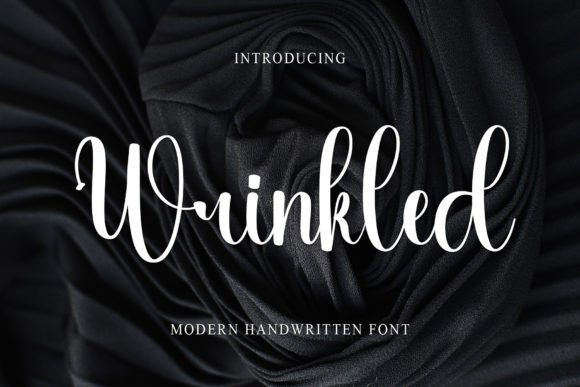
Introducing "Wrinkled Font" - A Handcrafted Masterpiece to Enchant Your Designs
Immerse yourself in the world of captivating typography with "Wrinkled Font," a captivating handwritten font born from the creative genius of PiPi Creative. This remarkable script font embodies elegance, charm, and timeless beauty, promising to transform your design projects into breathtaking masterpieces.
With its meticulously crafted curves and striking personality, Wrinkled Font is the ultimate choice for designers seeking to evoke emotions and make a lasting impact. Let your imagination run wild as you explore the endless possibilities this font offers, from heartfelt wedding invitations to captivating branding designs.
Unleash Your Creativity with Wrinkled Font:
- Handcrafted Charm: Each letter in the Wrinkled Font family is lovingly crafted by hand, ensuring a unique and authentic touch that adds depth and character to your designs.
- Timeless Elegance: Wrinkled Font transcends fleeting trends, embodying a classic style that will endure for years to come. Its timeless appeal guarantees that your designs will remain relevant and captivating, regardless of the ever-changing design landscape.
- Versatility Unleashed: Whether you're designing logos, website headers, social media graphics, or any other creative project, Wrinkled Font seamlessly adapts, adding a touch of sophistication and charm to every concept.
- Express Yourself Fully: From heartfelt love letters to powerful marketing campaigns, Wrinkled Font provides the perfect canvas for you to express your thoughts, ideas, and emotions with authenticity and impact.
- Make a Statement: Create designs that command attention and leave a lasting impression. Wrinkled Font's distinct personality and captivating style will ensure your projects stand out from the crowd.
Discover the Magic of Wrinkled Font Today:
- Elevate Your Branding: Establish a strong and memorable brand identity that resonates with your target audience. Wrinkled Font's unique aesthetic will help you create a brand that exudes professionalism, creativity, and sophistication.
- Engage Your Audience: Captivate your audience with visually stunning designs that evoke emotions and create a lasting connection. Wrinkled Font's charm will leave them wanting more.
- Unleash Your Creative Potential: Experience the freedom to explore your boundless creativity, knowing that Wrinkled Font will effortlessly enhance your designs and bring your vision to life.
- Stand Out from the Competition: Differentiate yourself from your competitors with designs that exude originality and personality. Wrinkled Font will help you create unique and memorable designs that set you apart.
- Create Designs that Speak to the Heart: Wrinkled Font's enchanting style will add a touch of warmth and humanity to your designs, making them relatable and emotionally resonant.